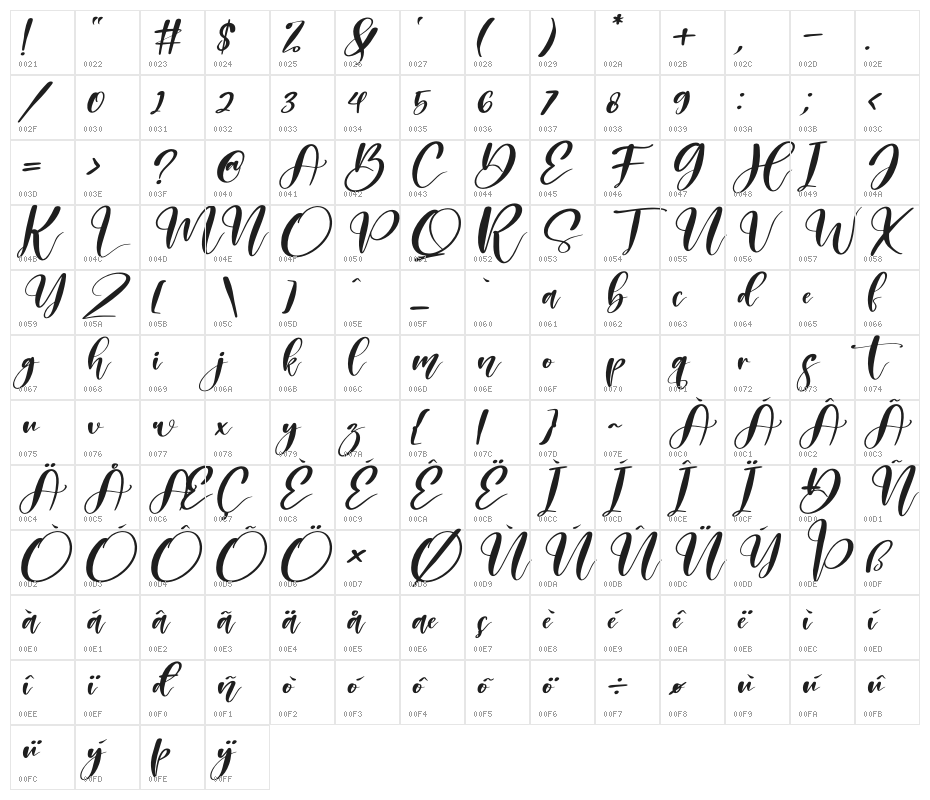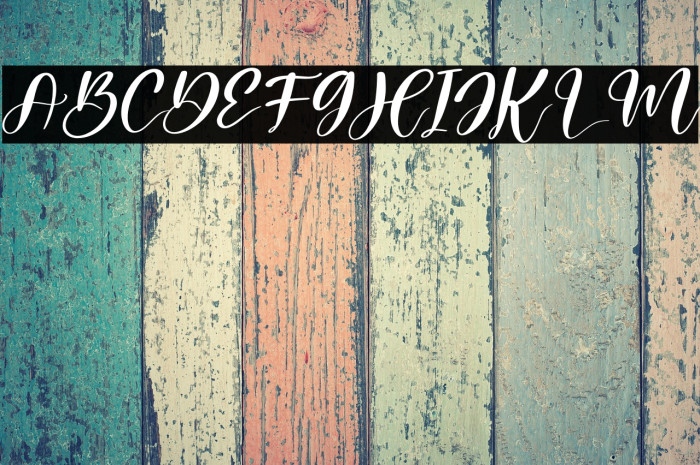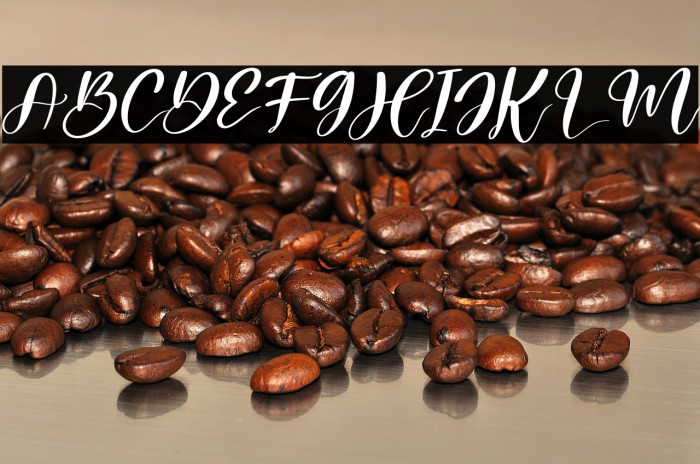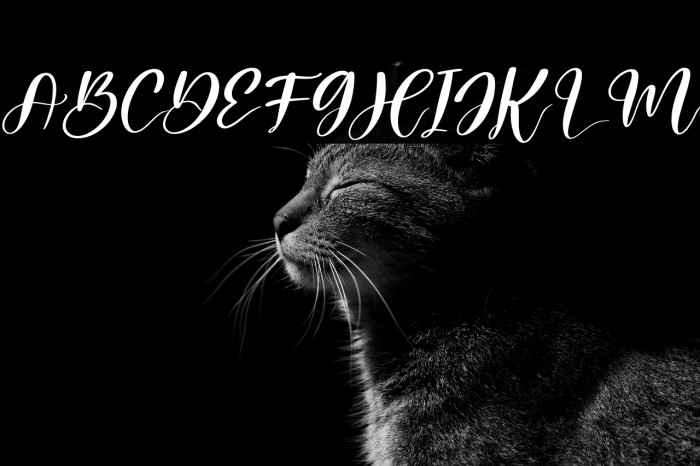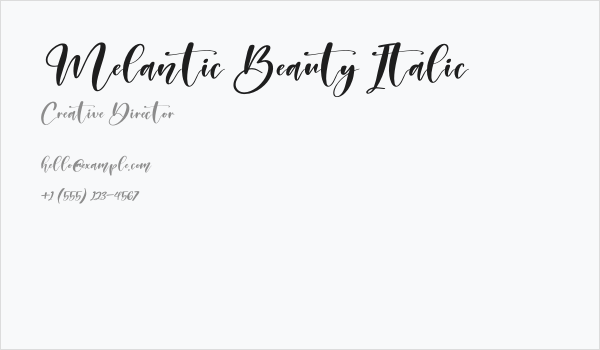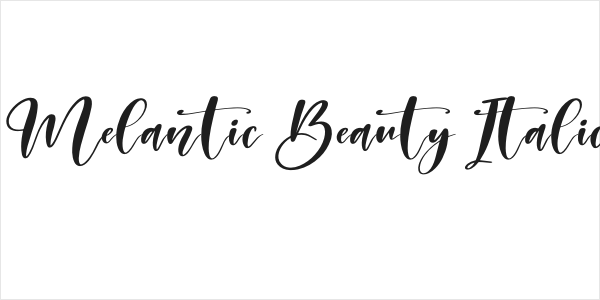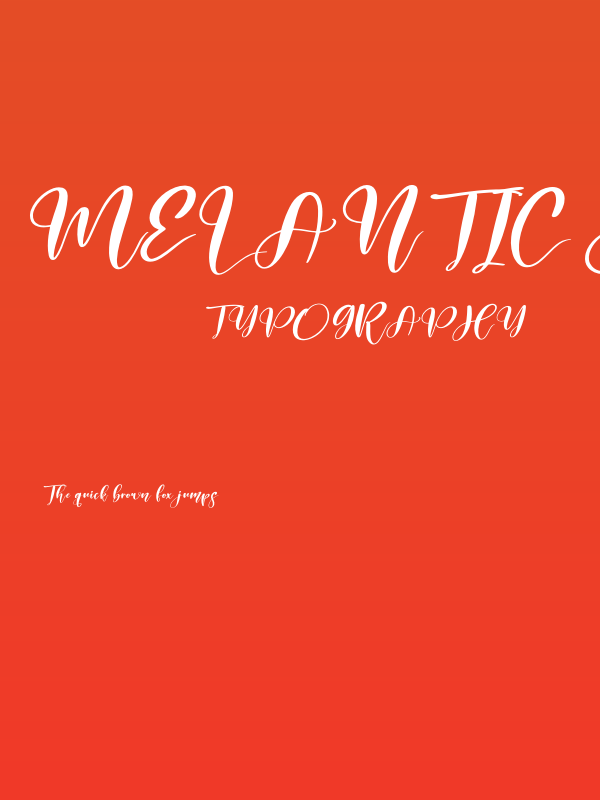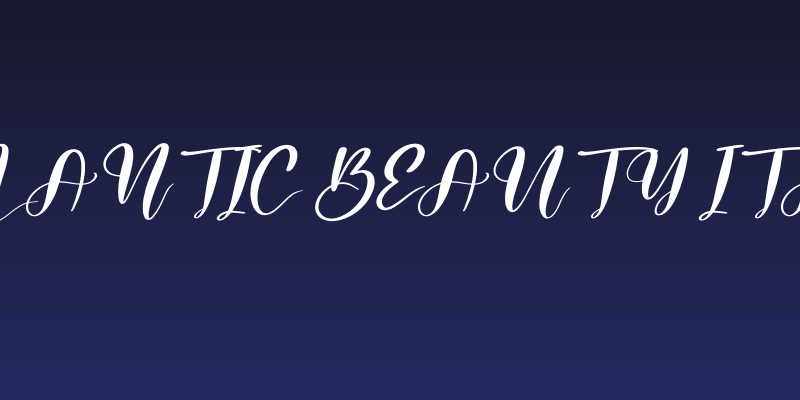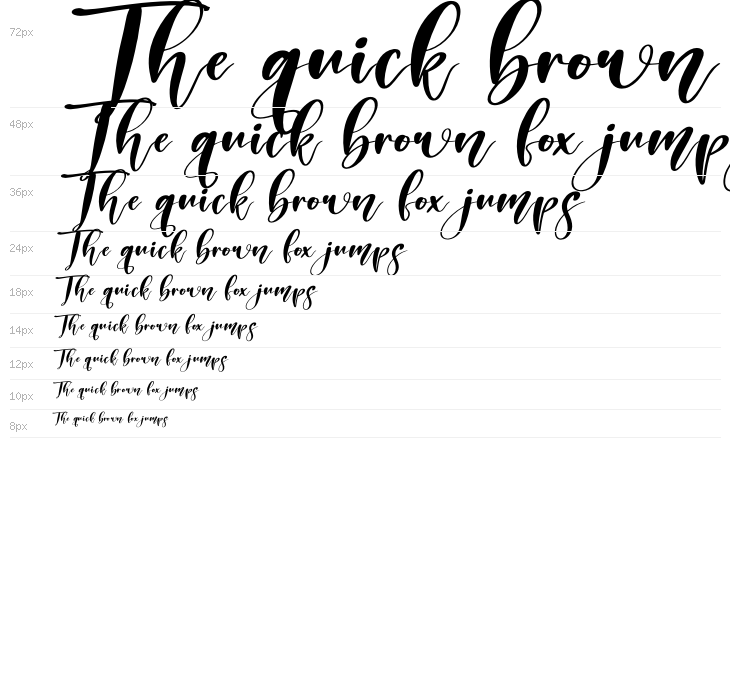
Melantic Beauty Italic Font
Melantic Beauty Italic Description
This font showcases an elegant and flowing script style, characterized by its smooth, cursive strokes and a sense of fluidity. The uppercase letters are ornate, with sweeping curves and loops that add a touch of sophistication. The lowercase letters maintain a consistent style, with a slightly more compact form, yet they retain the same graceful flow. Numbers and special characters are designed to match the overall aesthetic, featuring similar curves and embellishments. The font's italic nature enhances its dynamic appearance, making it suitable for projects that require a touch of elegance and flair.
| Font Family | Melantic Beauty |
| Overall Style | Elegant, Decorative |
| Proposed Projects | Ideal for wedding invitations, elegant branding, personal stationery, and decorative quotes. |